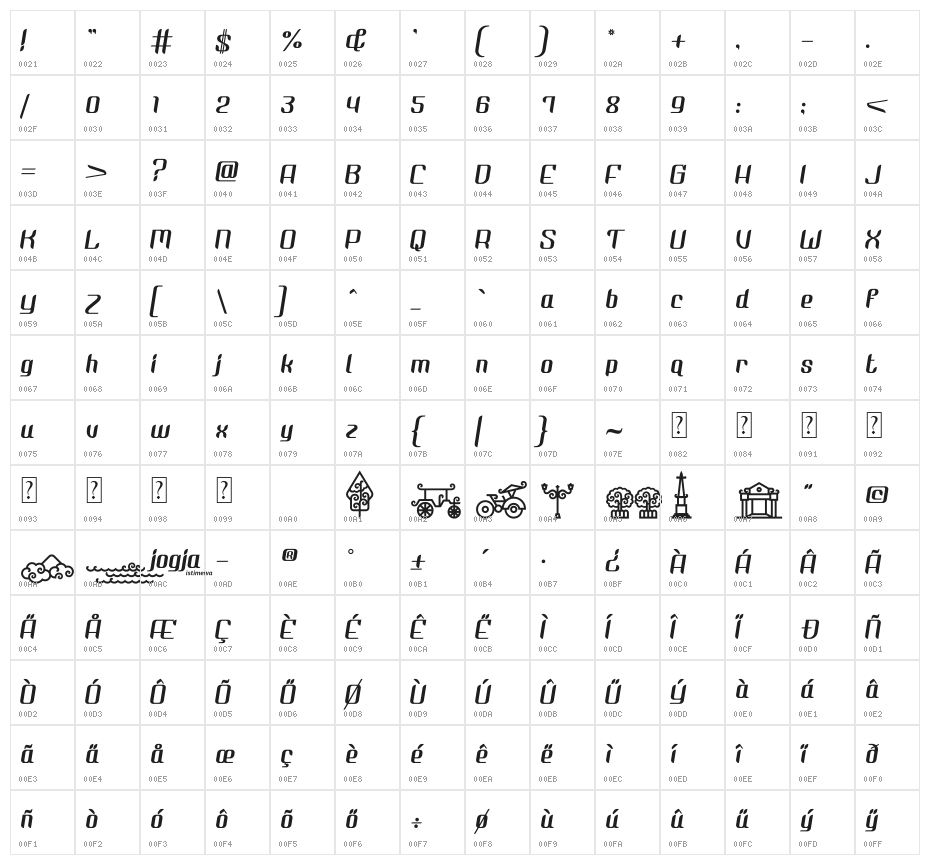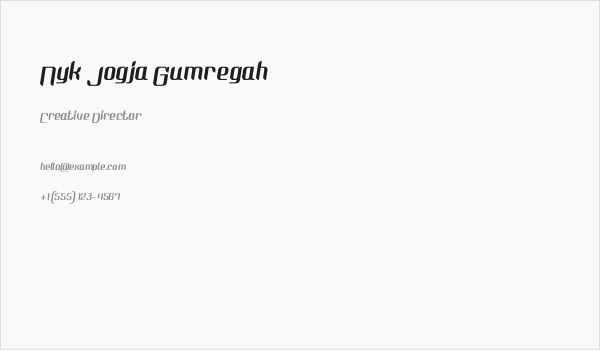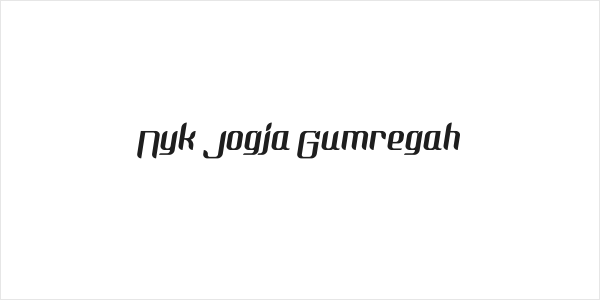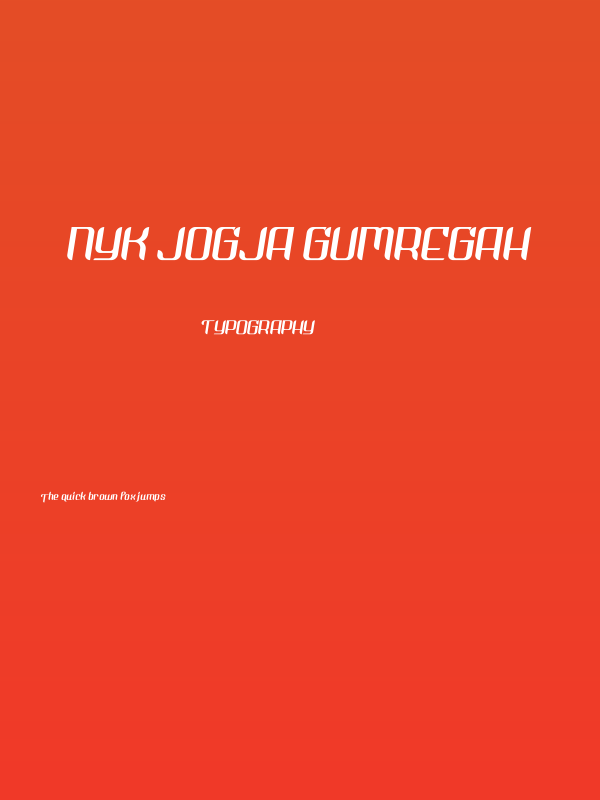
Nyk Jogja Gumregah Font
Nyk Jogja Gumregah Description
This font features a dynamic and modern design with a slight slant, giving it a sense of motion and energy. The characters are bold and have a unique, futuristic style with rounded edges and a consistent stroke width. The uppercase and lowercase letters maintain a cohesive look, while the numerals and special characters complement the overall aesthetic. The font's design is clean and legible, making it suitable for various creative applications.
| Proposed Projects | Ideal for sports branding, tech-related projects, dynamic posters, and modern advertising campaigns. |